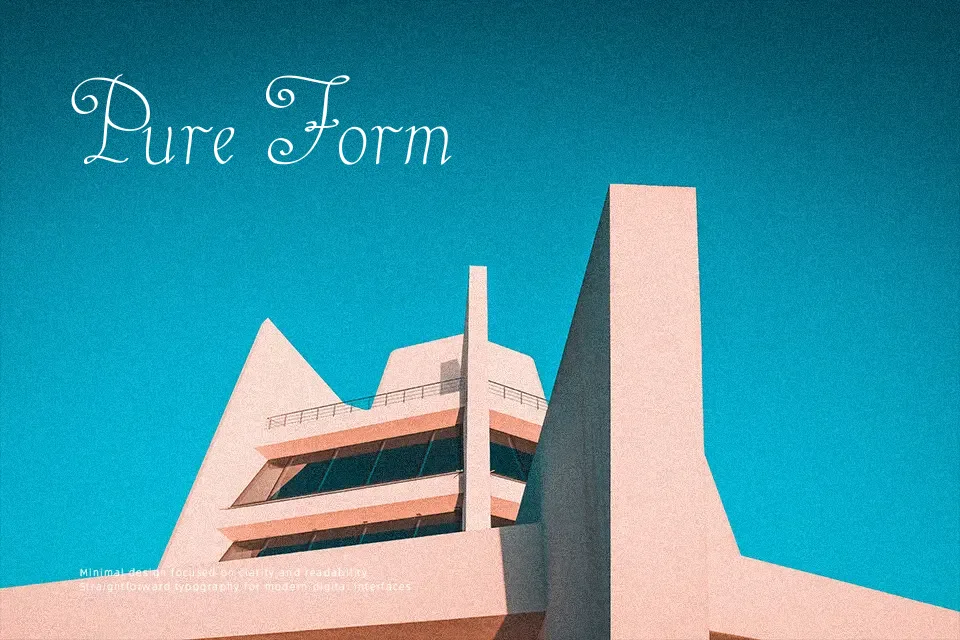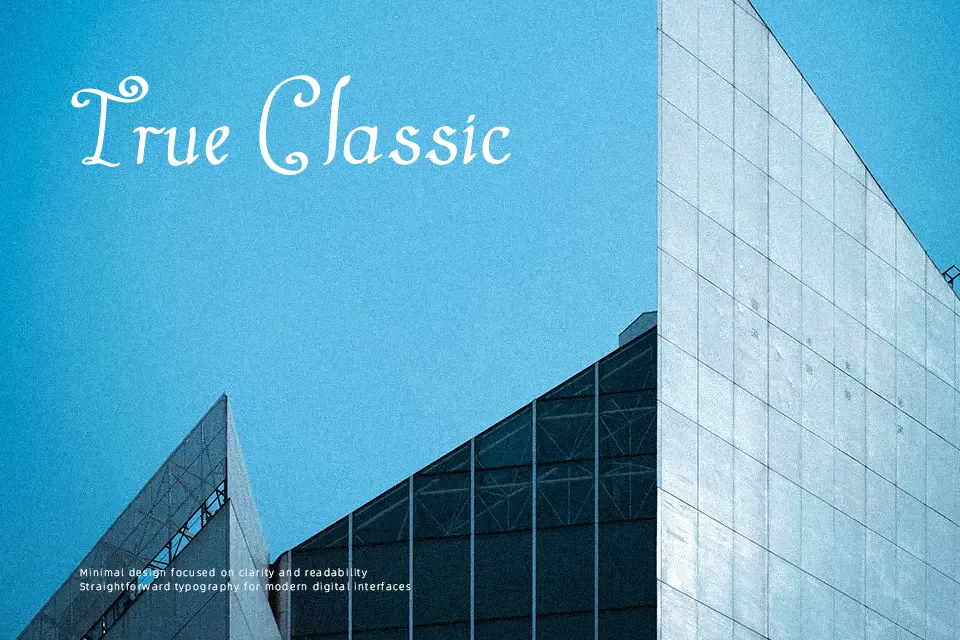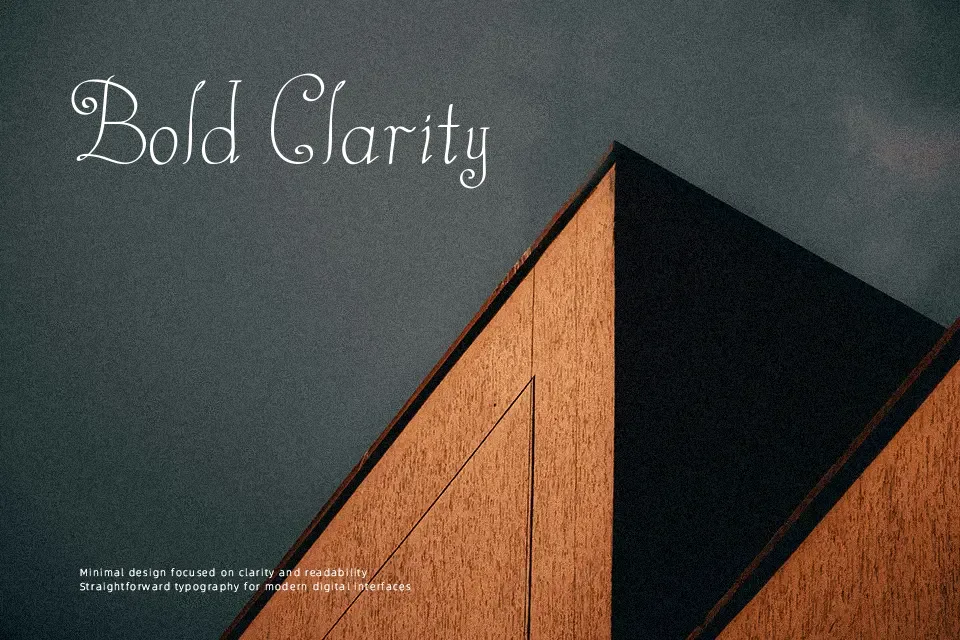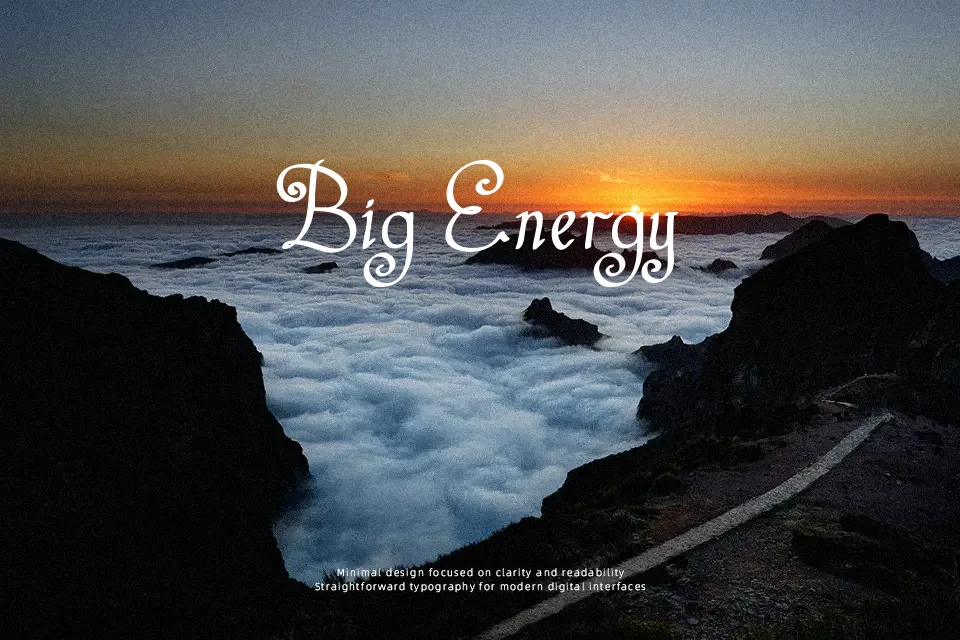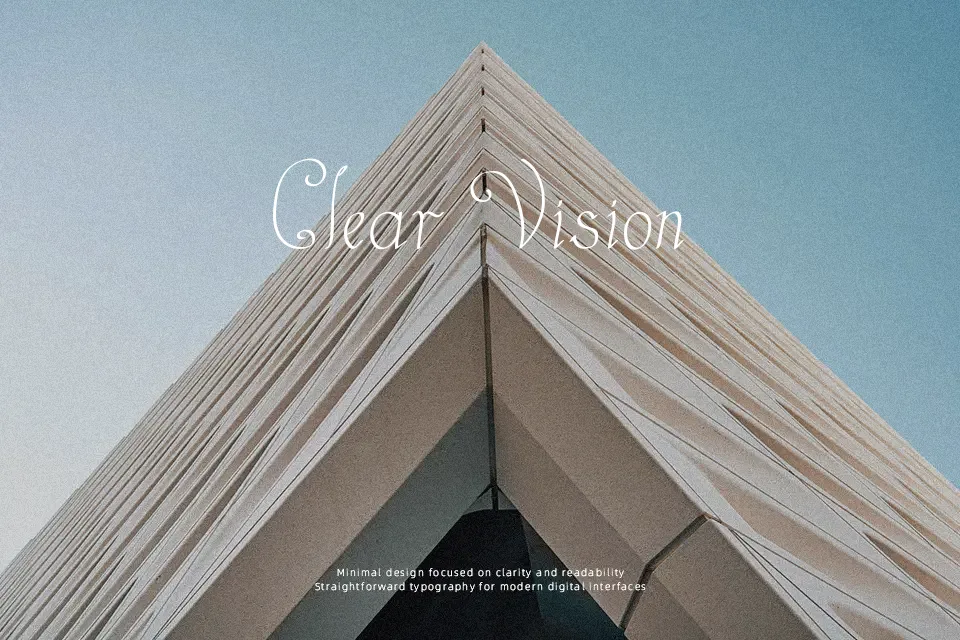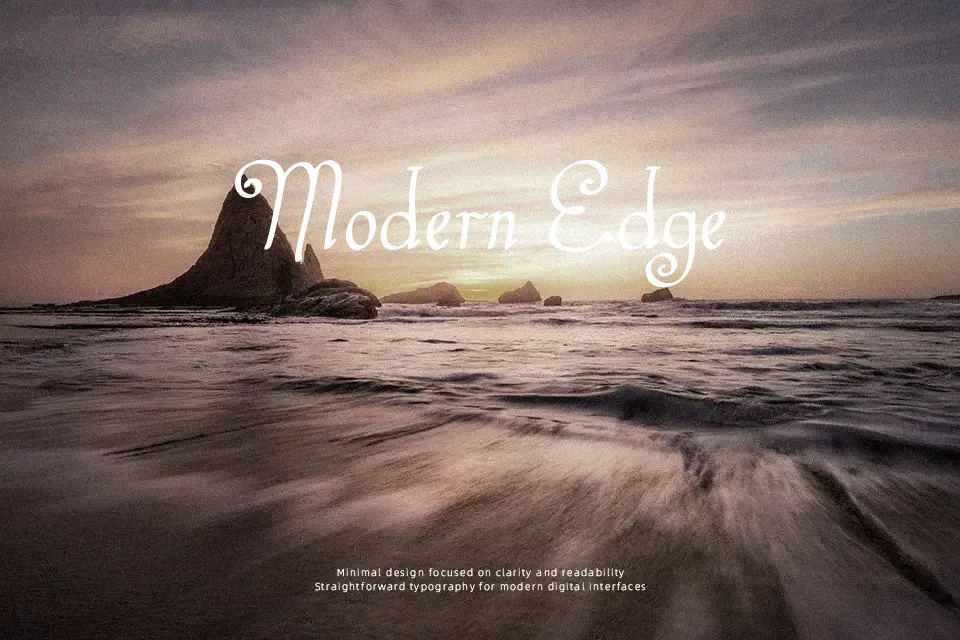
Castal Street Font
Castal Street Font immediately captures attention through its decorative construction, featuring pronounced curls, sweeping terminal loops, and moderate stroke contrast. The letterforms show open proportions and relatively wide spacing, which help prevent the elaborate swashes from colliding in display settings. In practical applications, the typeface excels across vintage poster headlines, festive greeting cards, and boutique brand marks where intricate detail adds personality. However, the intricate curves quickly blur together at small point sizes, making the font poorly suited for continuous body copy or technical documents. For prominent titling, the design delivers distinctive antique charm without sacrificing overall letter recognition.
Best For: vintage product packaging, festival poster headlines, decorative invitation titles, boutique shop signage
Not Ideal For: continuous body text, mobile user interfaces, dense editorial columns, small caption labels
Perfect for headline, invitation, and packaging, with a artistic and decorative style.